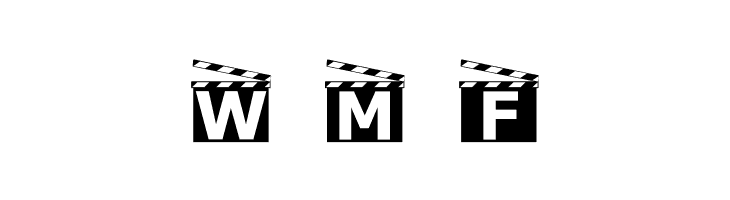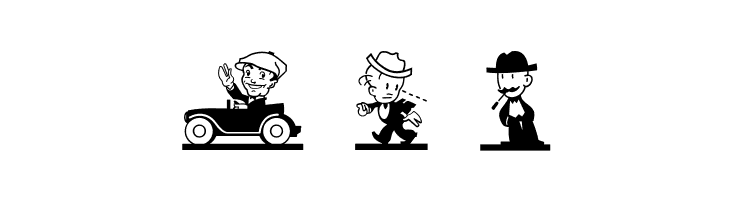
A bold set of computer-themed dingbats featuring various tech icons.
A chaotic, overlapping font with heavily obscured characters.
A modern, geometric font with clean lines and rounded corners.
A decorative font with intricate patterns and bold, artistic characters.
A bold, cinematic font styled like movie clapperboards.
A playful, domino-inspired font with characters in square tiles featuring dot patterns.
A bold, modern sans-serif font with geometric influences and high legibility.
A modern, bold sans-serif font with clean lines and excellent readability.
Cartoon character-based decorative font with playful, bold illustrations.